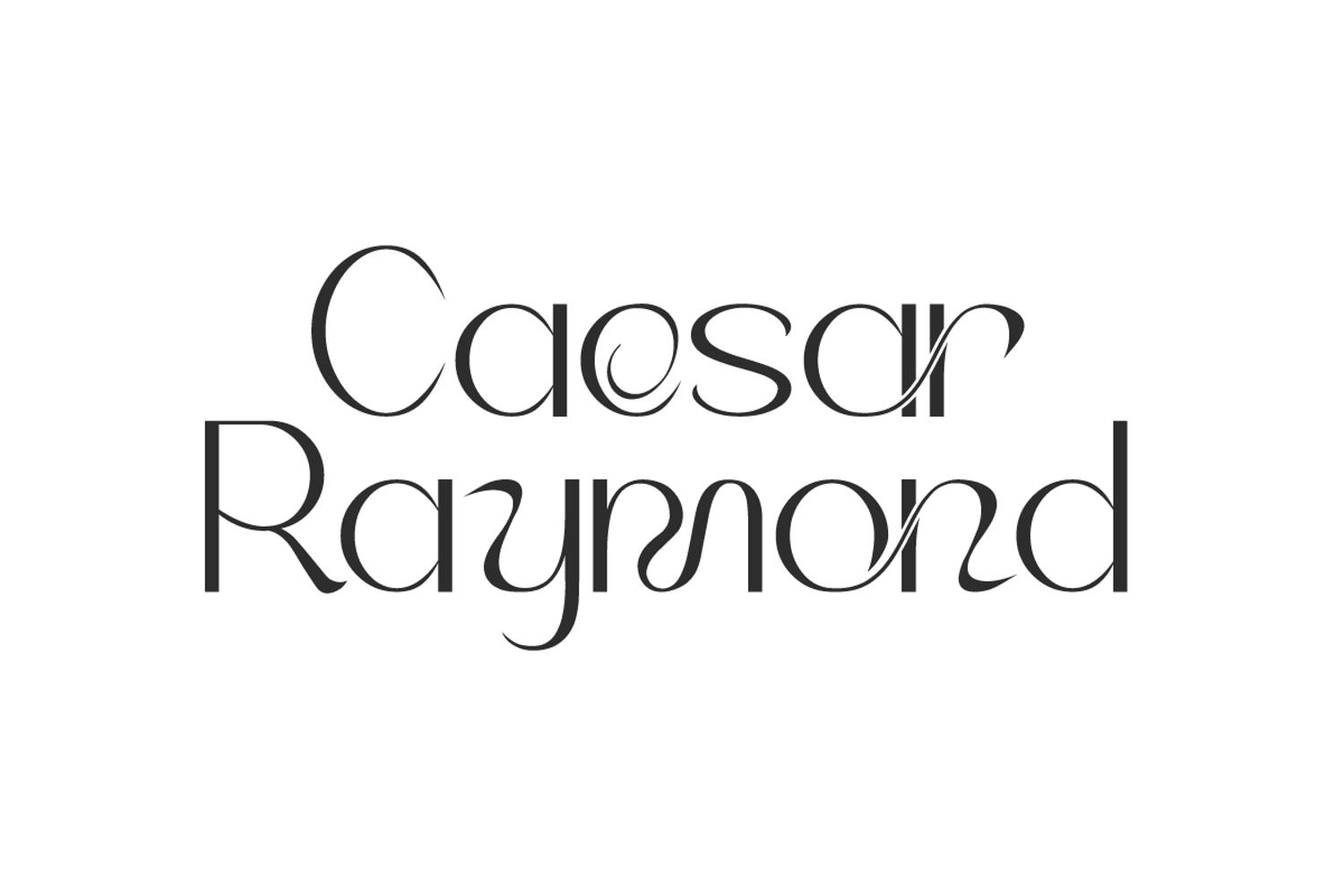
Caesar Raymond Font
Caesar Raymond Font is a uniquely stylish sophisticated display font with several charming decorated special ligatures to choose from. Its delicate and unique curves give epicness to each character. Great for blogs, cover magazine, headings, invitations, labels, logos, quotes, signage, stickers, template designs, and much more.
Caesar Raymond Font contains complete basic characters of Uppercase and Lowercase Letters, Numbers, Symbols, Punctuation, and Ligatures. This typeface is filled with subtle quirks yet maintains its graceful form. Super unique font that makes anything stand out like for clothing branding, cosmetic, fashion, home furniture, jewelry, salon, and more.